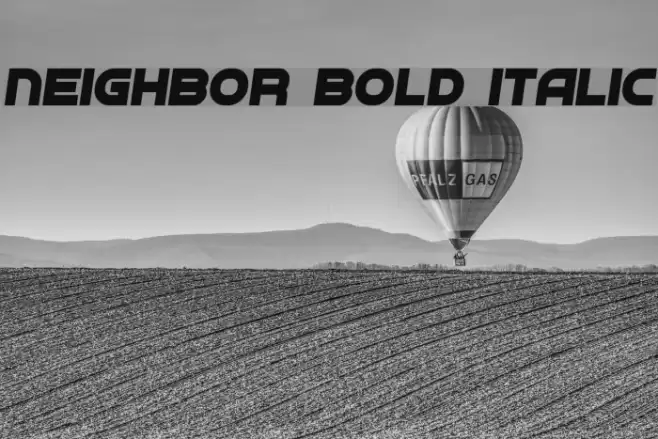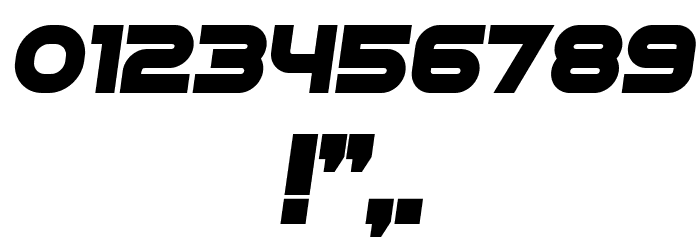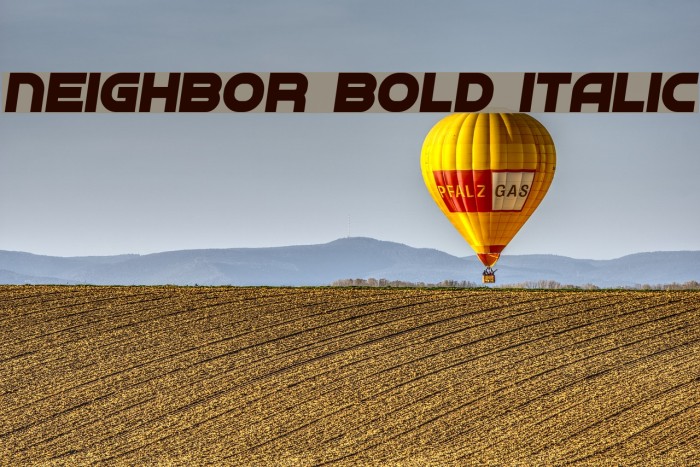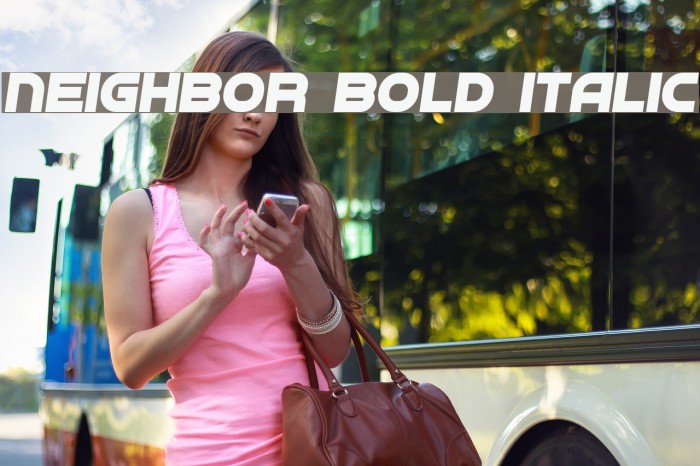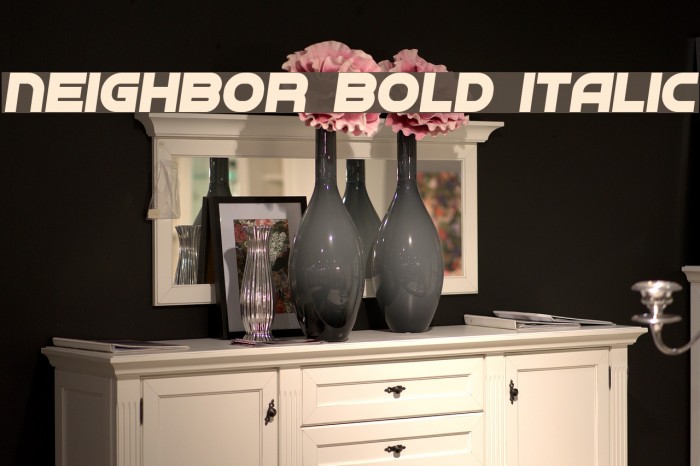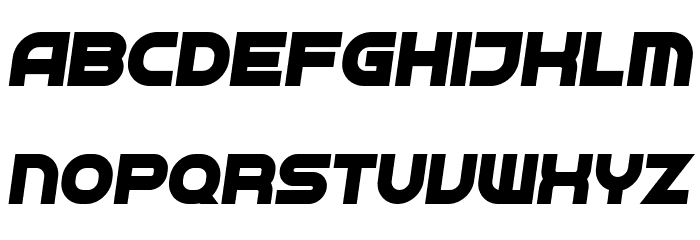
Neighbor Bold Italic Font
Neighbor Bold Italic Description
This font features a bold and italicized style with a modern and dynamic appearance. The characters are slightly slanted, giving a sense of motion and energy. The strokes are thick and consistent, providing a strong visual impact. The overall design is sleek and contemporary, making it suitable for projects that require a bold statement. The uppercase and lowercase letters maintain a uniform width, contributing to a cohesive look. The numerals are equally bold, ensuring readability and emphasis. Special characters are designed to match the bold and italicized theme, enhancing the font's versatility.
A bold, italicized font with a modern and dynamic style from Uncategorized fonts.
- Proposed Projects: Ideal for headlines, posters, branding, and advertising materials that require a strong and modern look.